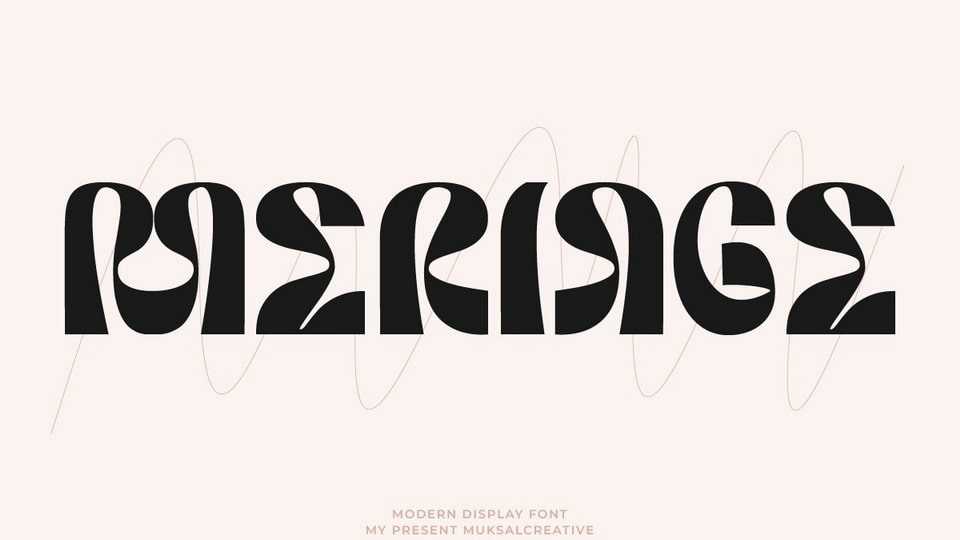
Meriage Font › Fontesk – Download Grátis
Download Meriage font, a modern curved display typeface with a unique personality. Meriage font is a very versatile font that works great in large and small sizes.